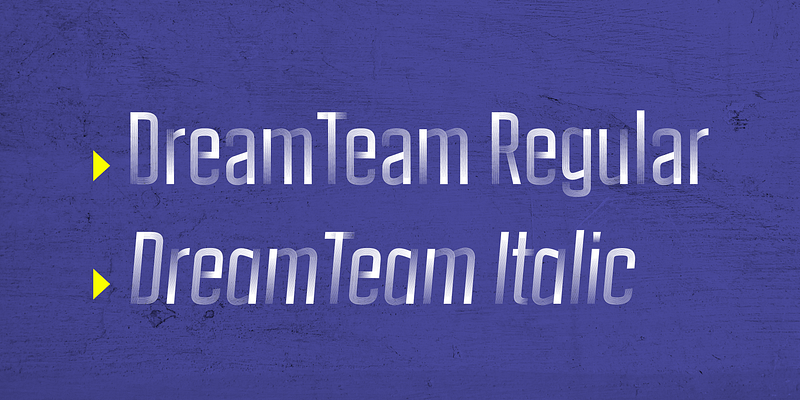
DreamTeam Font Free Download
DreamTeam Font Free Download is a bold, sporty display typeface built for high-impact visuals and energetic branding. With its strong lines, sharp angles, and dynamic structure, this font is perfect for athletic apparel, sports teams, event posters, gaming graphics, and anything that needs to exude strength and confidence.
Designed to grab attention, DreamTeam delivers a sense of motion and teamwork—ideal for titles, logos, and social media content where bold expression is key. It includes uppercase characters, numerals, punctuation, and supports multiple languages for flexible use across various platforms.
Whether you’re designing for a basketball team, esports event, or streetwear brand, DreamTeam Font Free Download gives your project an edge. Download and test it out in personal or non-commercial work to see how it powers up your visuals. For professional or commercial use, don’t forget to secure the proper license. Bring the energy of a championship mindset to your designs with this standout font.